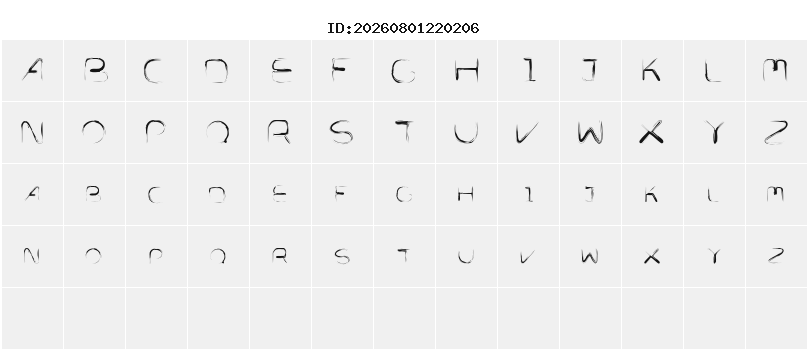
Mellifluos Preview
• Font Name: Mellifluos
• Full Font Name: Mellifluos
• PostScript Name: Mellifluos
• Character Count: 54
• Designer: Arran Corbett
• Manufacturer: Arran Corbett
About Mellifluos.ttf
Mellifluos.ttf is a modern, elegant sans-serif font designed for ultimate readability and visual harmony. Perfect for branding, headlines, web design, and print materials.